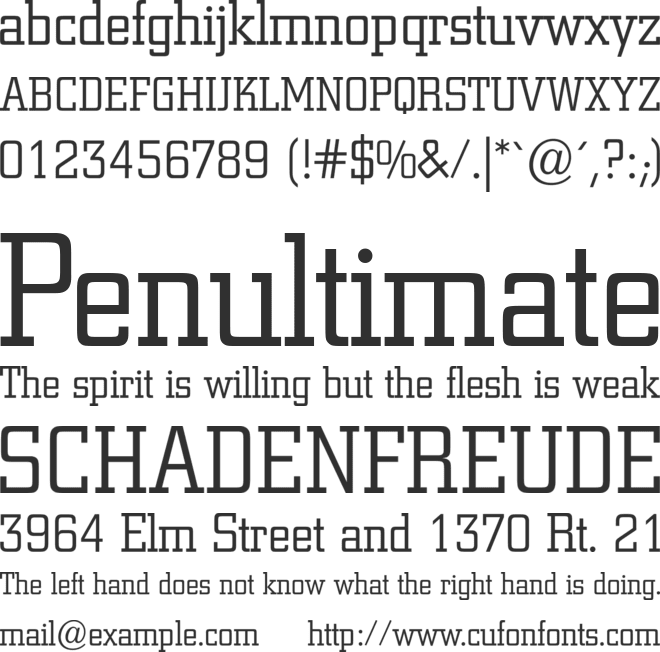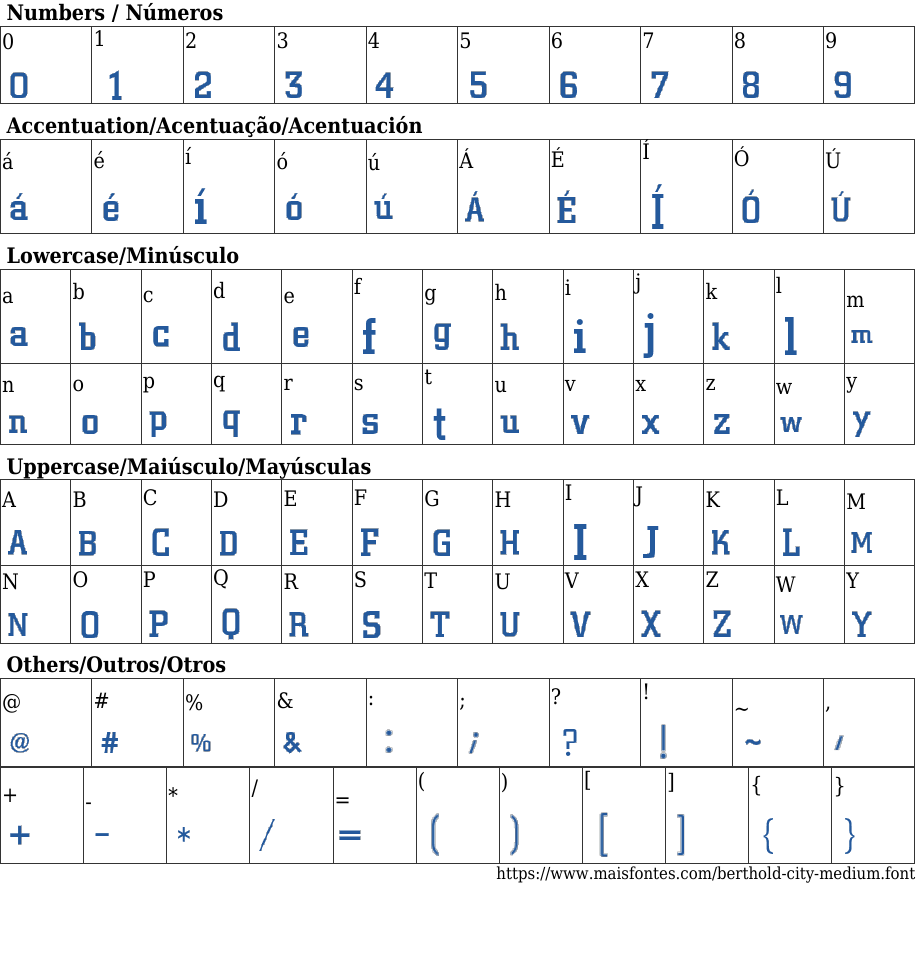
Berthold City Font
Berthold City Font - City font family was designed by georg trump and published by berthold. City is a slab serif typeface designed by georg trump and released around 1930 by the. Berthold city font family designed by unknown designer has a total of 7 different styles. Here are some fonts similar to berthold city.
Here are some fonts similar to berthold city. Berthold city font family designed by unknown designer has a total of 7 different styles. City is a slab serif typeface designed by georg trump and released around 1930 by the. City font family was designed by georg trump and published by berthold.
Here are some fonts similar to berthold city. City font family was designed by georg trump and published by berthold. Berthold city font family designed by unknown designer has a total of 7 different styles. City is a slab serif typeface designed by georg trump and released around 1930 by the.
Berthold city font family designed by unknown designer has a total of 7 different styles. Here are some fonts similar to berthold city. City font family was designed by georg trump and published by berthold. City is a slab serif typeface designed by georg trump and released around 1930 by the.
City is a slab serif typeface designed by georg trump and released around 1930 by the. Here are some fonts similar to berthold city. Berthold city font family designed by unknown designer has a total of 7 different styles. City font family was designed by georg trump and published by berthold.
City font family was designed by georg trump and published by berthold. City is a slab serif typeface designed by georg trump and released around 1930 by the. Here are some fonts similar to berthold city. Berthold city font family designed by unknown designer has a total of 7 different styles.
City font family was designed by georg trump and published by berthold. Berthold city font family designed by unknown designer has a total of 7 different styles. City is a slab serif typeface designed by georg trump and released around 1930 by the. Here are some fonts similar to berthold city.
City font family was designed by georg trump and published by berthold. City is a slab serif typeface designed by georg trump and released around 1930 by the. Here are some fonts similar to berthold city. Berthold city font family designed by unknown designer has a total of 7 different styles.
Here are some fonts similar to berthold city. City font family was designed by georg trump and published by berthold. Berthold city font family designed by unknown designer has a total of 7 different styles. City is a slab serif typeface designed by georg trump and released around 1930 by the.
Here are some fonts similar to berthold city. City is a slab serif typeface designed by georg trump and released around 1930 by the. City font family was designed by georg trump and published by berthold. Berthold city font family designed by unknown designer has a total of 7 different styles.
Here are some fonts similar to berthold city. Berthold city font family designed by unknown designer has a total of 7 different styles. City is a slab serif typeface designed by georg trump and released around 1930 by the. City font family was designed by georg trump and published by berthold.
Berthold City Font Family Designed By Unknown Designer Has A Total Of 7 Different Styles.
Here are some fonts similar to berthold city. City is a slab serif typeface designed by georg trump and released around 1930 by the. City font family was designed by georg trump and published by berthold.